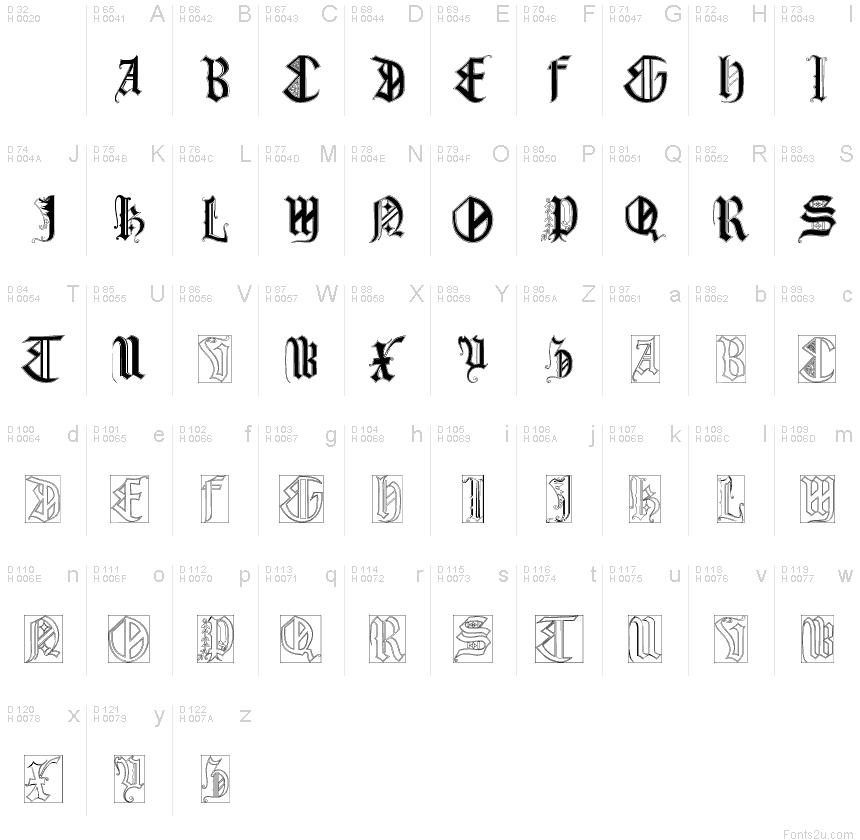
Reta Caps by Ouripedes Gallene is a free medieval initials font built from sharply drawn, ornamental capitals. Broad strokes meet fine outlines, pointed joins, and small engraved flourishes. Each letter has the air of a hand-cut emblem.
Medieval and fantasy themes make it a convincing choice for historical publishing, game packaging, and event posters. On merchandise, the decorated capitals can function as illustrated crests, with internal patterns supplying imagery as well as lettering.